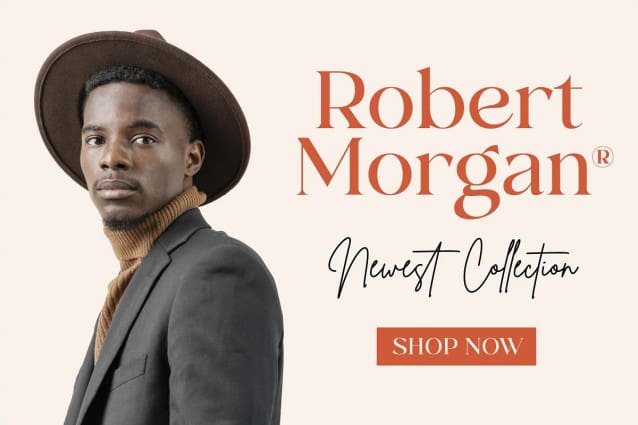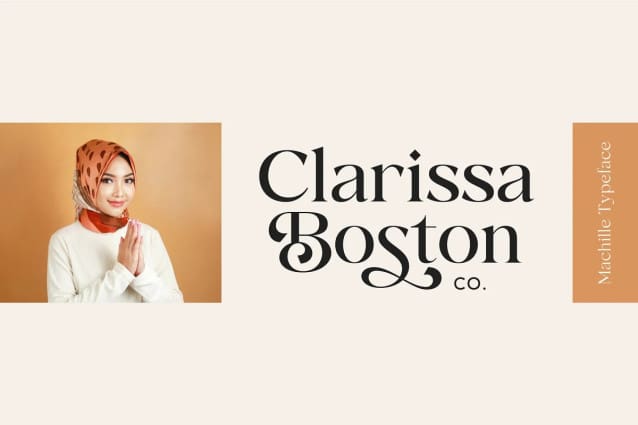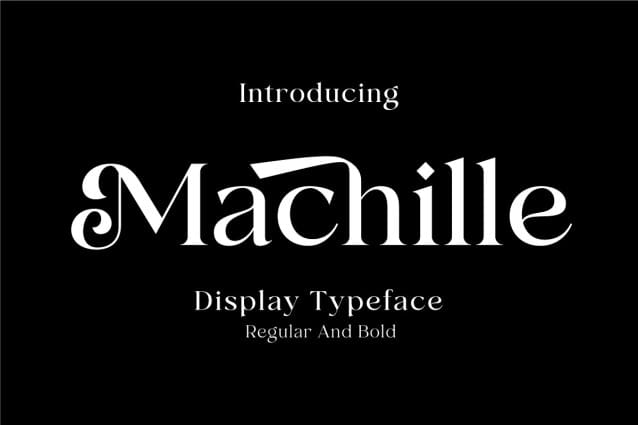
Machille Font
Machille Font is a display font with elegance and unique looks crafted especially for fashion design. But, you can also use this font for other needs such as invitations, labels, logos, magazines, books, greeting / wedding cards, packaging, stationery, novels, labels and etc.